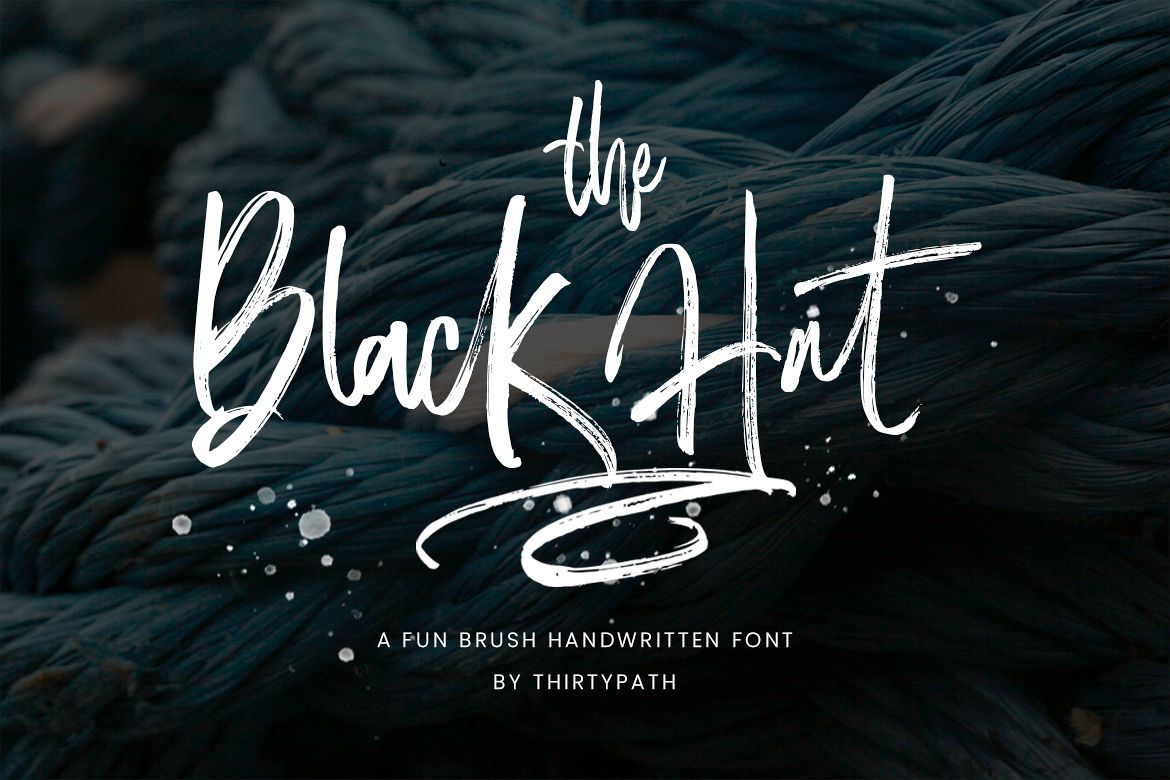
The Black Hat Script
Swash The Black Hat
The Black Hat
Hi all...!! The Black Hat is a hand brush products with extras. The style of handwriting and irregular but still elegant, and you will enjoy to use this font style.
The Black Hat has standard ligatures included - to give the font a more natural, scripted look when you have any double letters in your design. It also has multilingual support with accented characters for international users.
The Black Hat is perfect for branding projects, homeware designs, product packaging - or simply as a stylish text overlay to any background image.